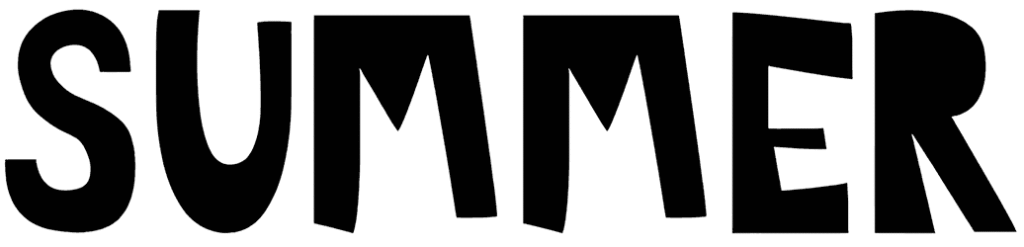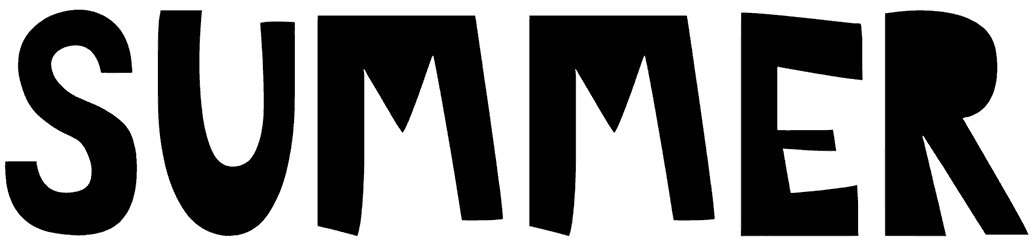
Summer Font
Try Summer if you’re looking for a cartoon font that breaks the preconceived notions of summer design. This fancy font is a good choice for those who want to get out of their safe circle and bring a controversial design to paper.
Using two different capital letter styles in Summer, the absence of numbers and small letters isn’t felt at all. So feel free to introduce a summer festival with this decorative font or send a summer greeting card to your friend.
Summer is a fantastic
set of fonts, numbers and elements
handmade inspired by summer.
the ability to create multiple
types of original and versatile motifs.
formed by a set of …
have fun trying the various solutions
possible for advertising signs,
flyers, stickers … and much more …